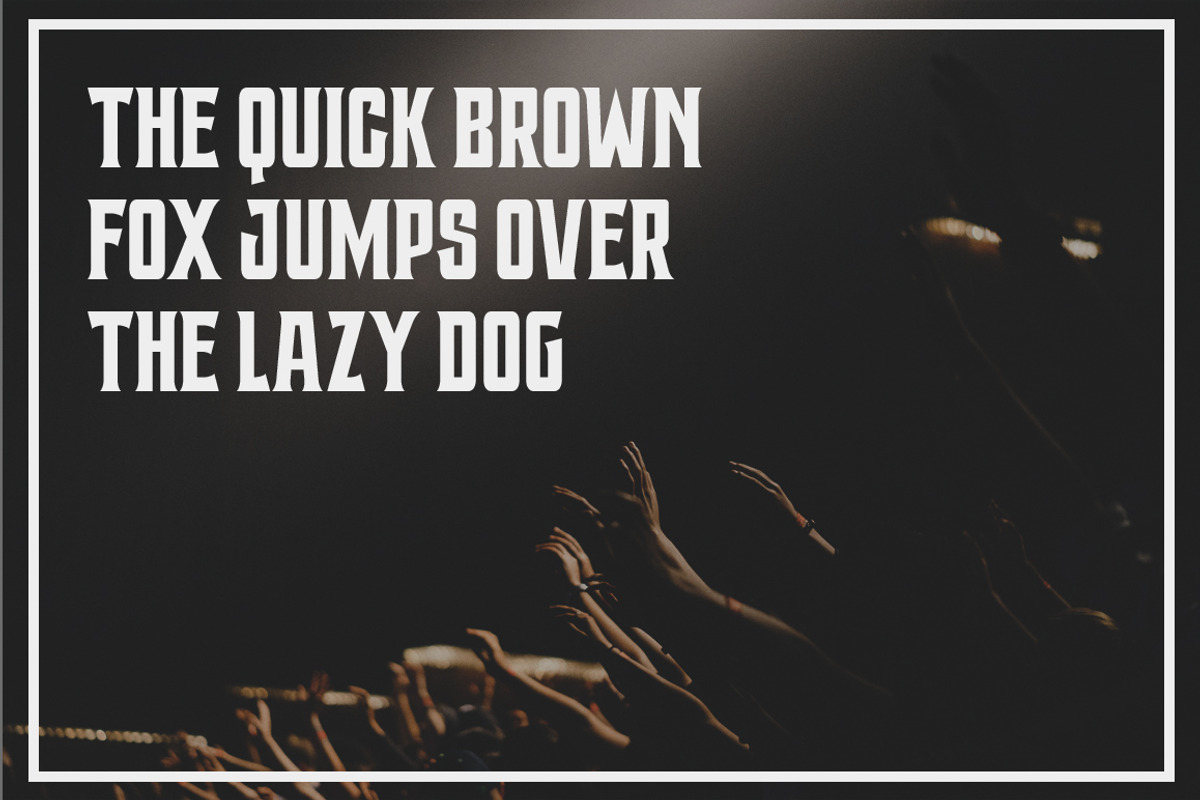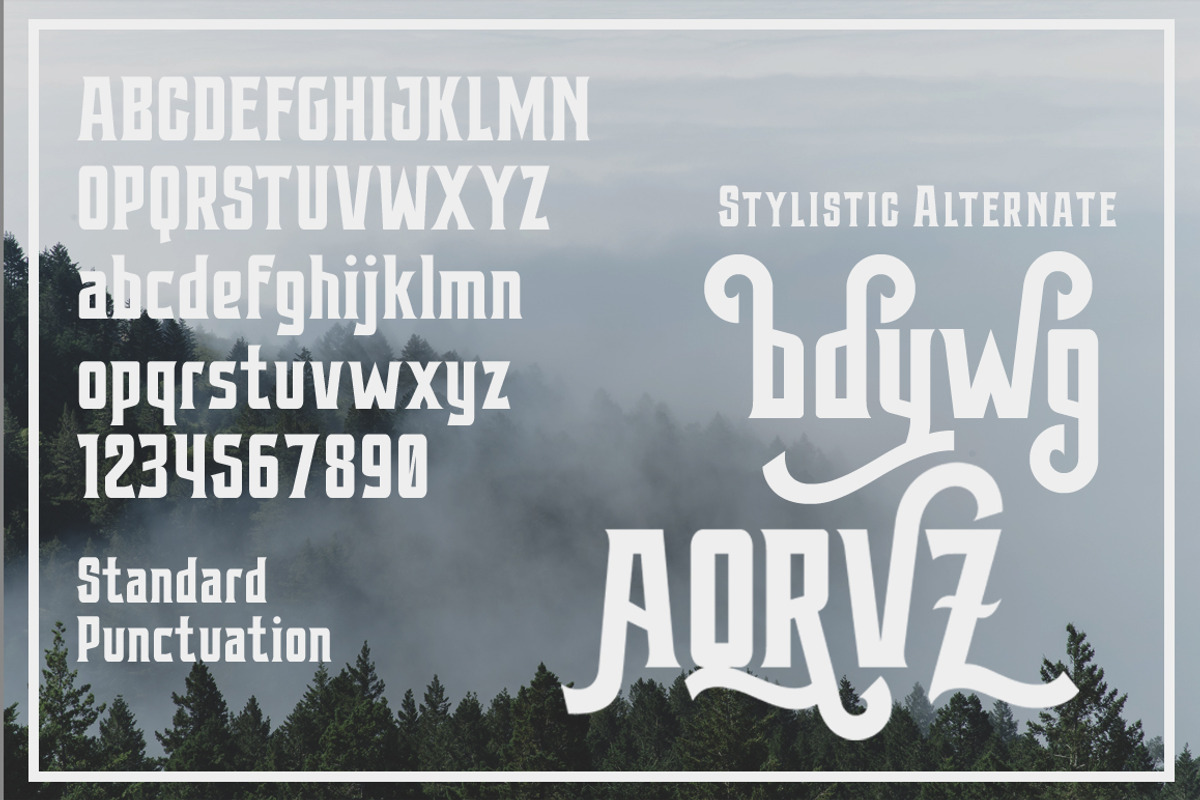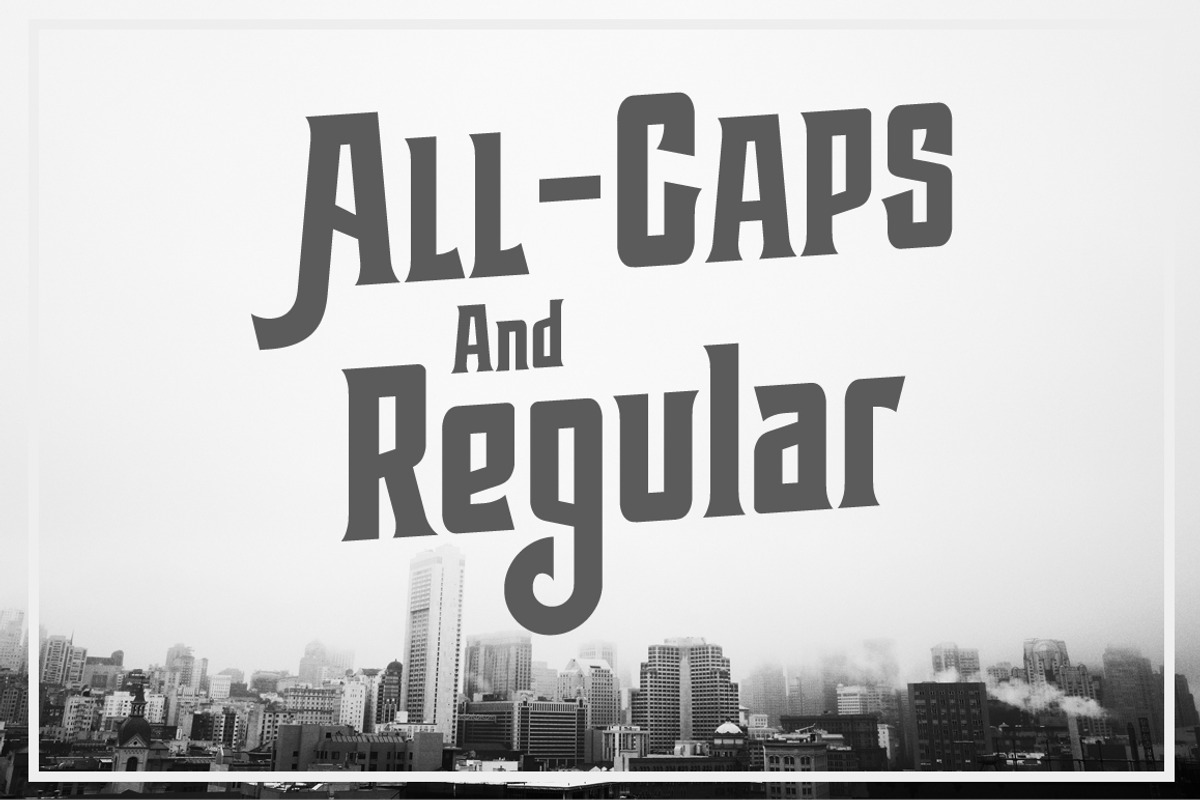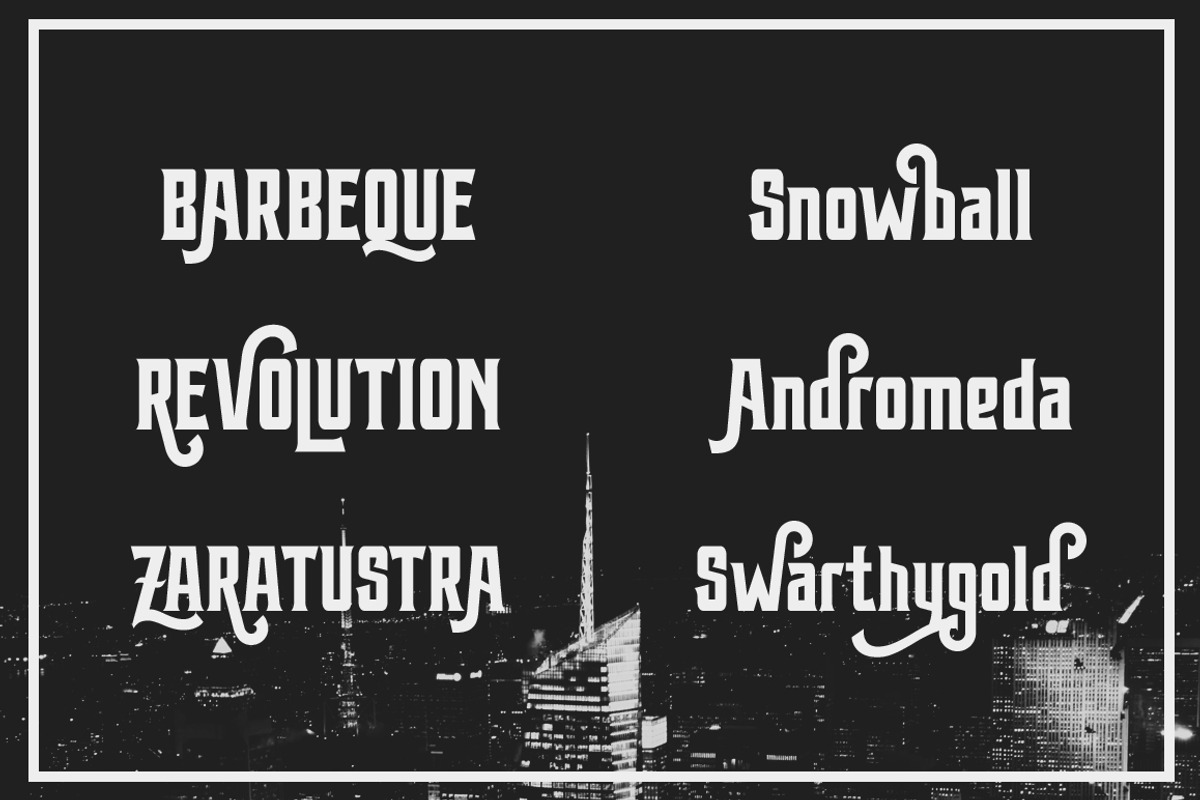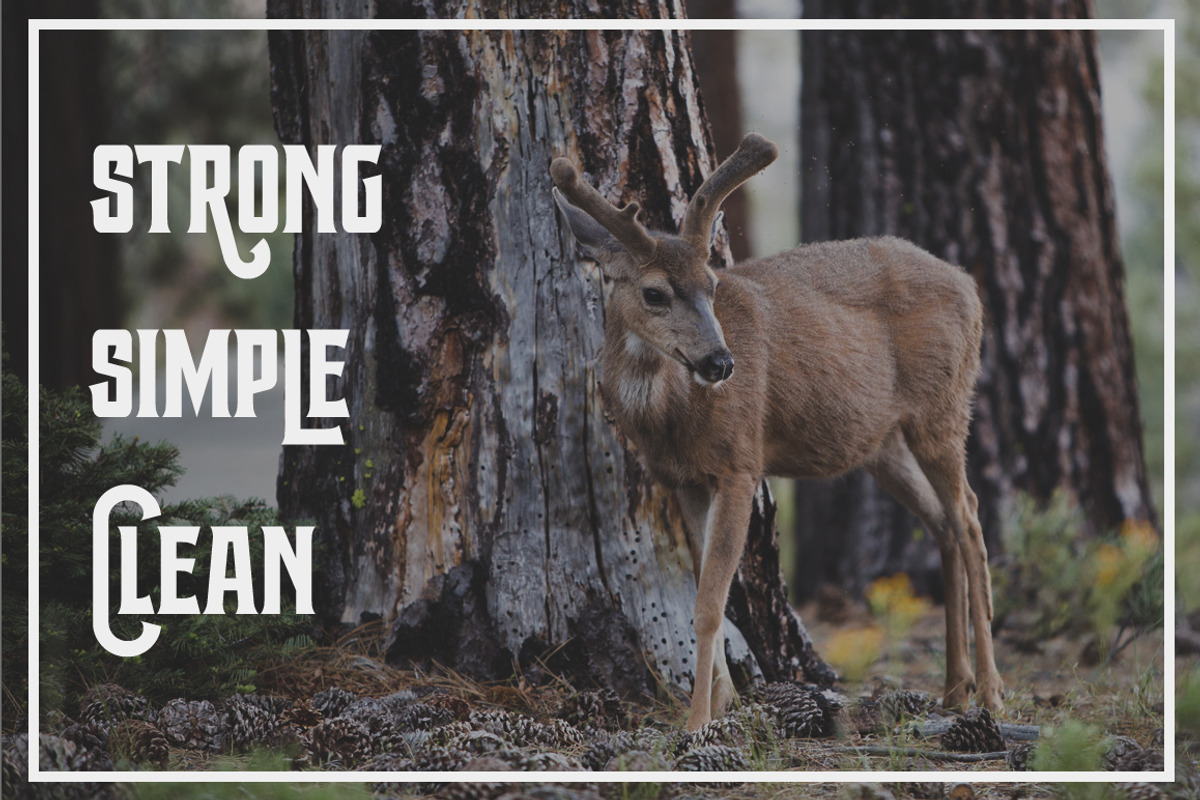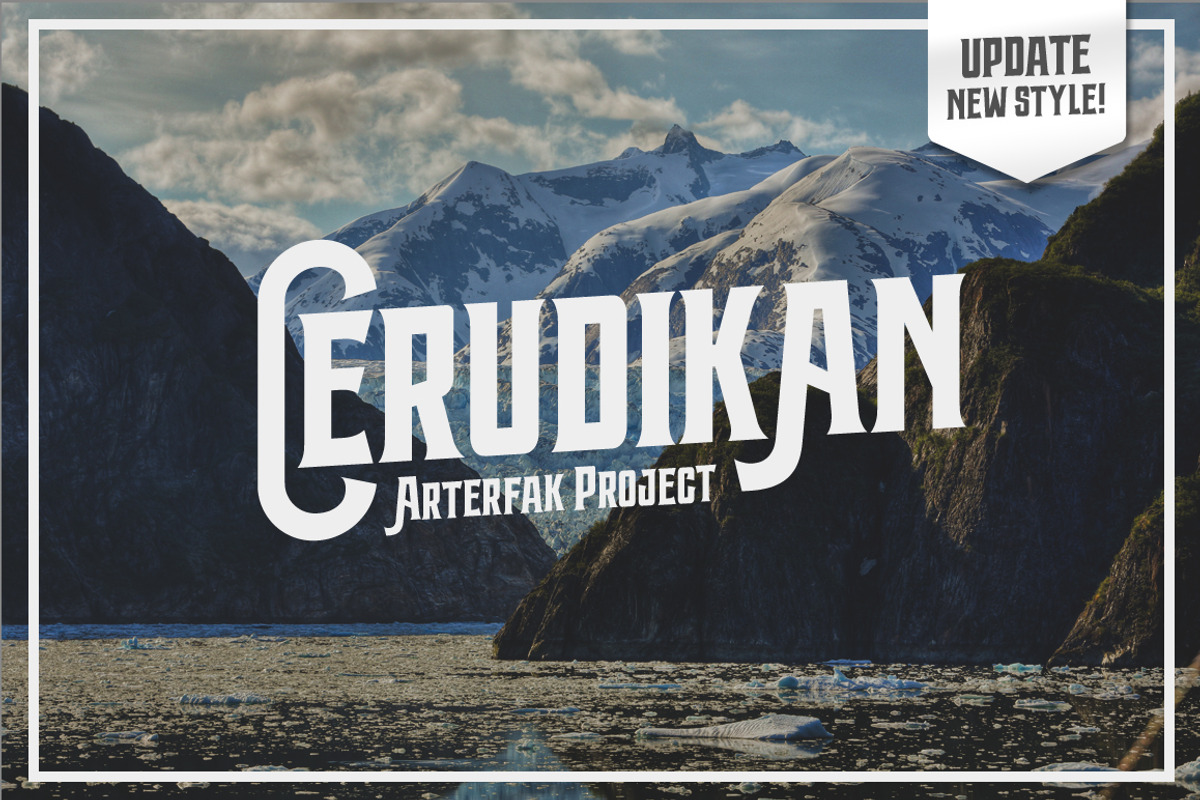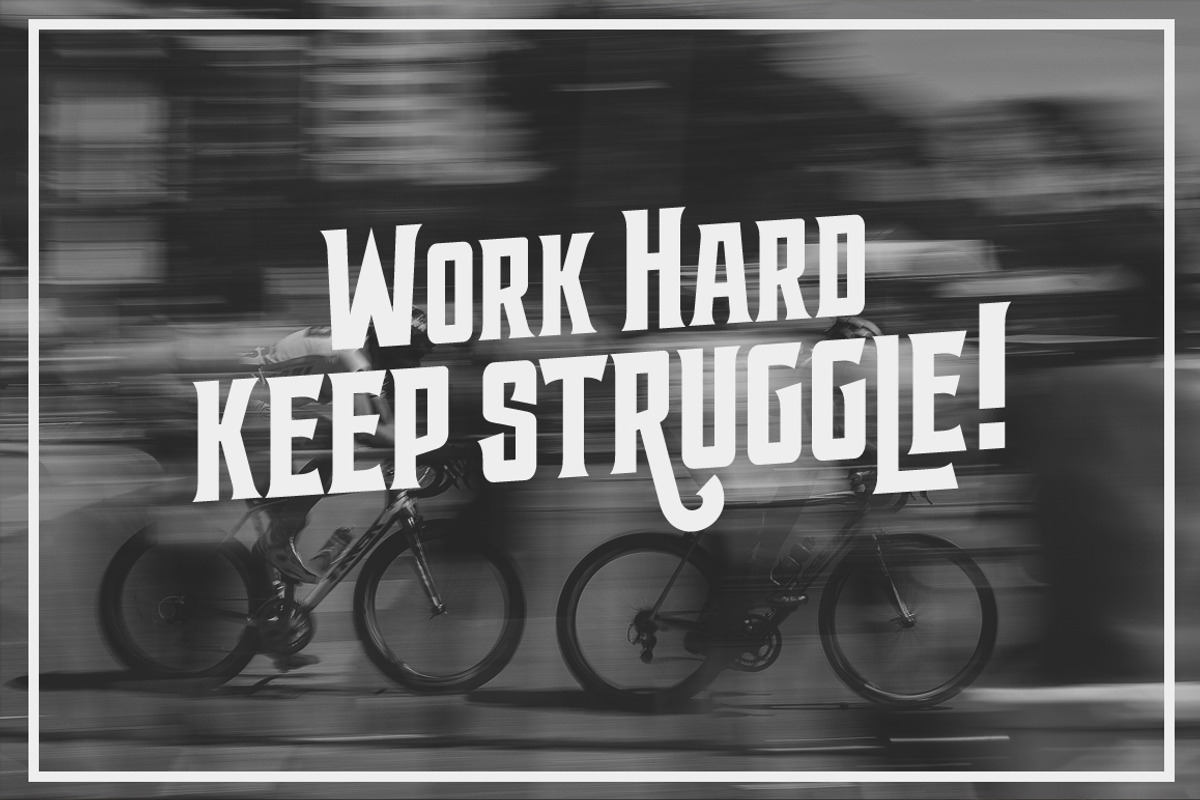
Cerudikan (Updated)
[UPDATE!] Hi! Introducing Cerudikan Typeface, the strong, simple and clean font. very recommended for your big or small design. Now available in All-Caps and Regular style There's some styilistic alternate to make your design more good.
- Lowercaps
- Stylistic Alternate.